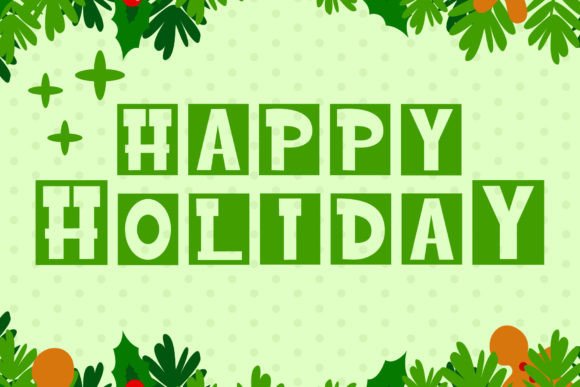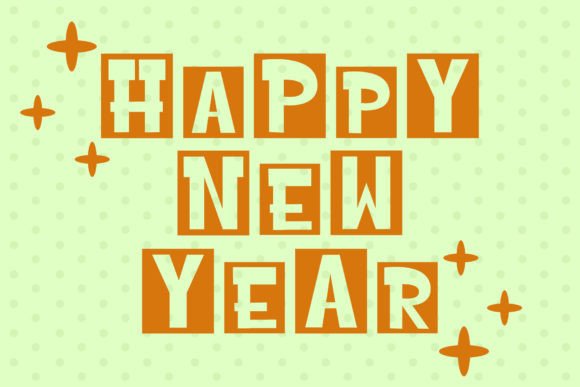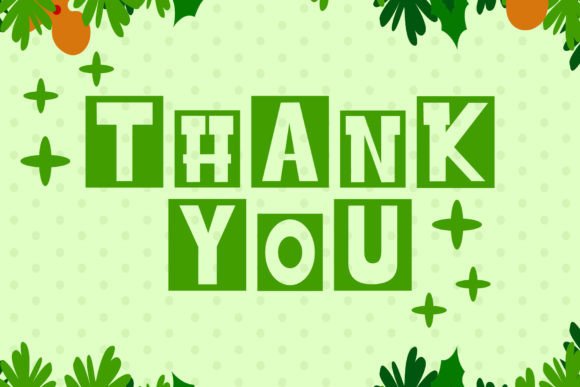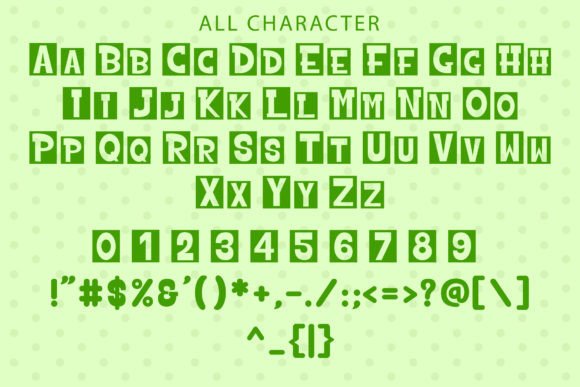
The Magic of Box Grinches Font: A Holiday Designer’s Dream
An Honest Review of Box Grinches Font
Box Grinches Font, also known as Balls Christmas, is a beautiful and unique decorative display font that’s perfect for Christmas. Here’s what I love about it:
- ✨ Unique and festive design inspired by stars and lights on Christmas
- ✅ Perfect for creating cute holiday t-shirts, stickers, cover books, children’s books, social media posts, and more
- 🎉 Highly versatile and can be used for various design projects
- 👍 Easy to read and understand, even in smaller sizes
While Box Grinches Font is an amazing addition to any designer’s toolkit, there are a few small quirks to be aware of:
- 🤔 Limited use outside of holiday-themed projects – it might not be the best fit for non-Christmas designs
- ⚠️ Some characters may not work well in very small sizes, so it’s best to use it for display purposes
The Backstory Behind Box Grinches Font
Box Grinches Font was designed with the holiday season in mind. The designer wanted to create a font that captured the whimsy and playfulness of Christmas, with a unique and festive design that’s perfect for creating holiday-themed projects. Inspired by stars and lights on Christmas, Box Grinches Font is sure to bring a touch of holiday magic to your designs.
| What is Box Grinches Font? | Box Grinches Font, also known as Balls Christmas, is a beautiful and unique decorative display font perfect for Christmas. |
| What can I use Box Grinches Font for? | You can use Box Grinches Font for creating cute holiday t-shirts, stickers, cover books, children’s books, social media posts, and more. |
| Is Box Grinches Font easy to read? | Yes, Box Grinches Font is easy to read and understand, even in smaller sizes. |
| Can I use Box Grinches Font for non-holiday designs? | While Box Grinches Font is designed for holiday-themed projects, you can experiment with using it for non-holiday designs – but it might not be the best fit. |